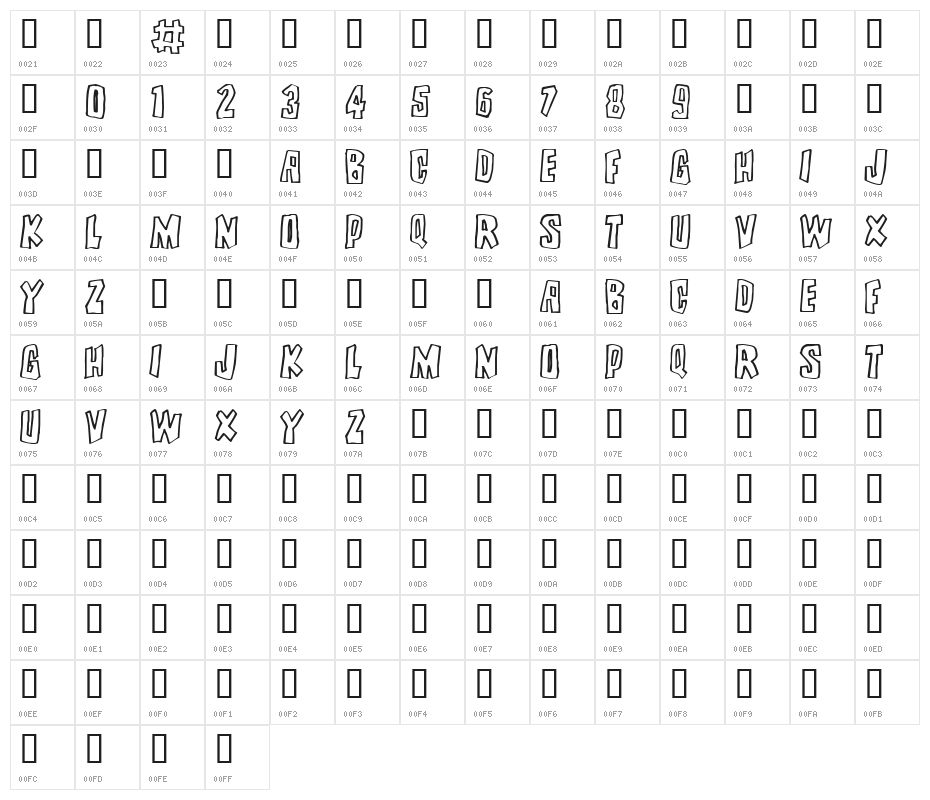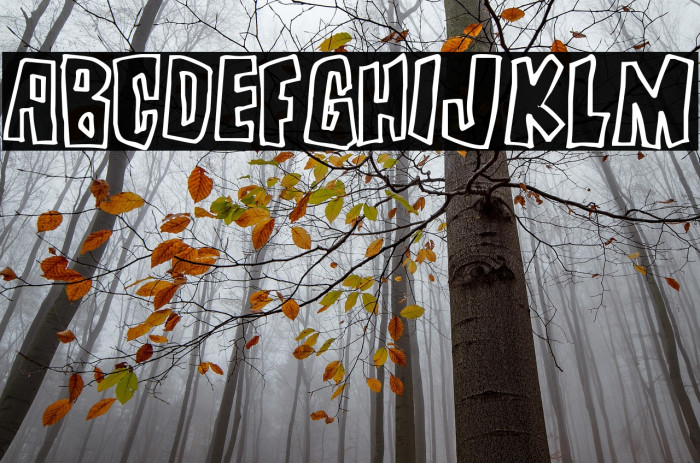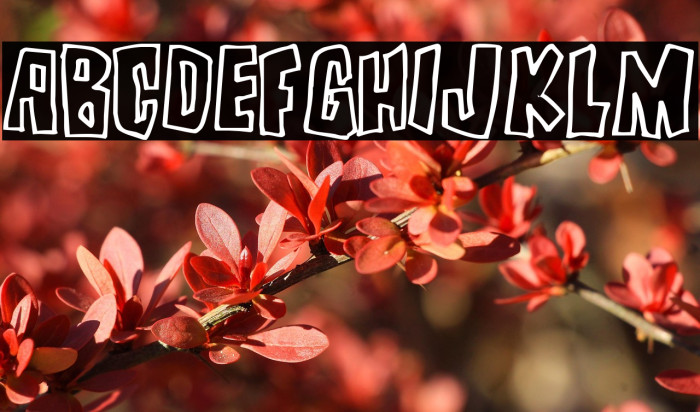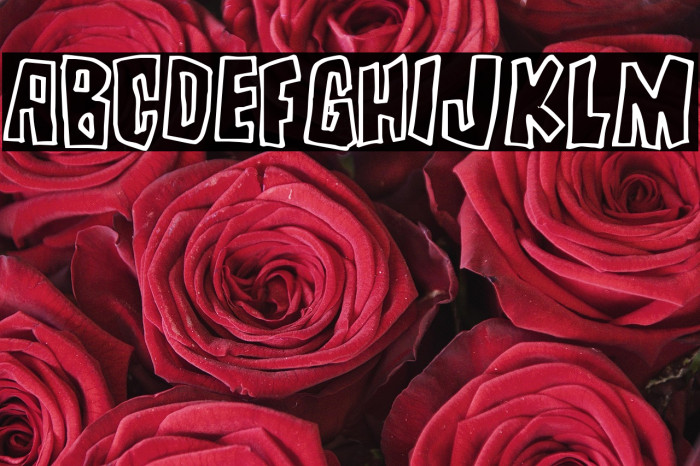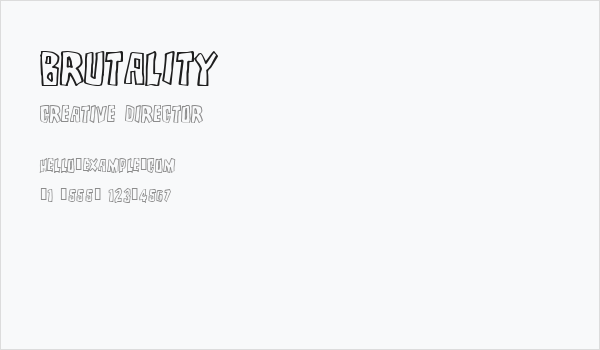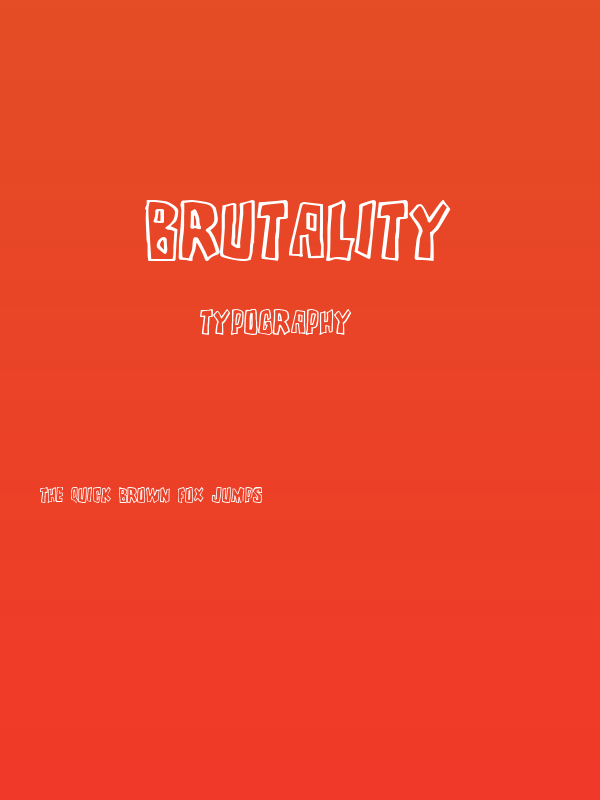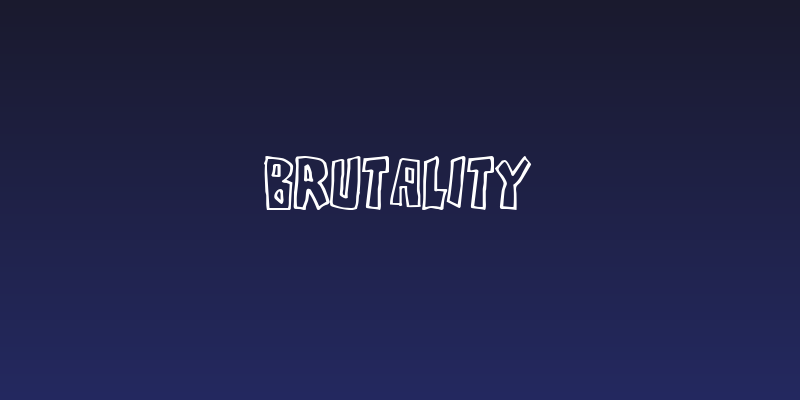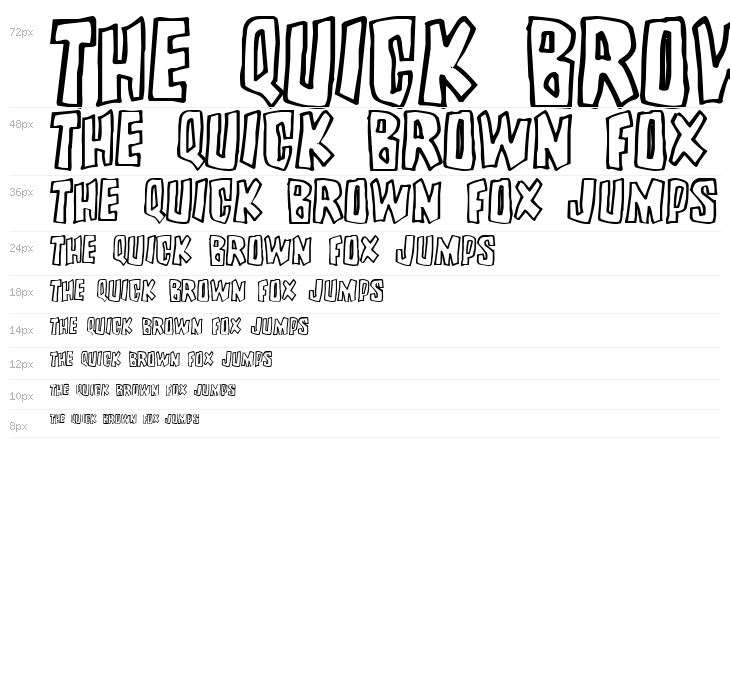
Brutality Font
Brutality Description
This font features a bold, edgy style with a hand-drawn appearance. The characters have irregular, jagged edges that give them a rugged and dynamic look. Each letter and number is uniquely shaped, adding to the font's distinctive personality. The uppercase and lowercase letters maintain a consistent style, with a playful yet aggressive aesthetic. The numbers and special characters follow the same design principles, ensuring a cohesive look across all glyphs. This font's boldness and unique character make it stand out, perfect for projects that require a strong visual impact.
| Proposed Projects | Ideal for posters, album covers, graffiti art, and branding projects that require a bold statement. |